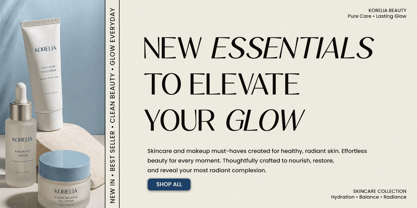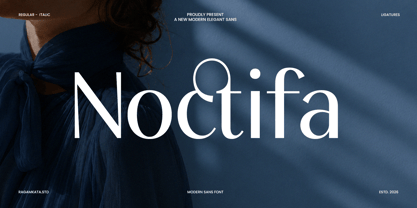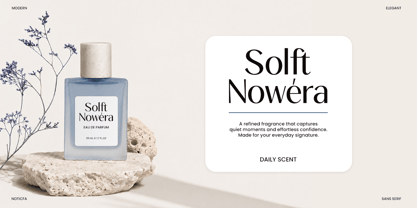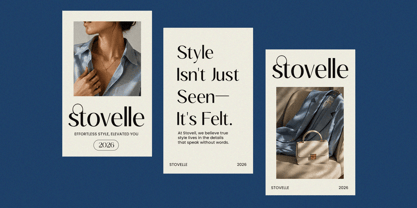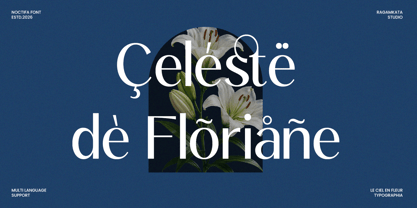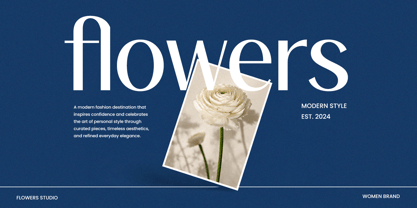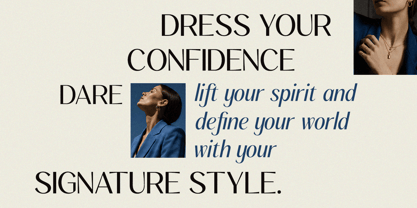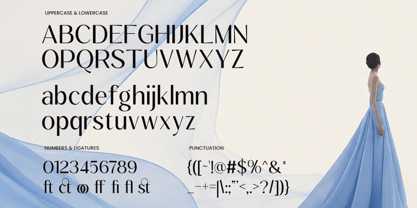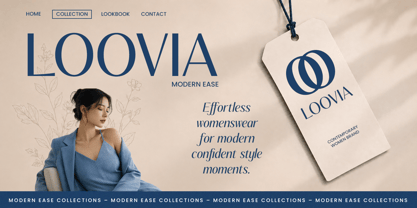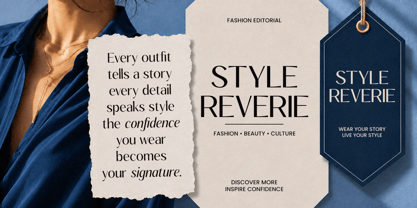
Noctifa
Noctifa is a modern luxury sans serif font crafted for sophisticated branding and contemporary editorial design. Featuring clean geometry, refined proportions, and elegant letterforms, it delivers a premium visual identity that feels confident, stylish, and effortlessly modern.
Designed for creative professionals, Noctifa works beautifully across fashion campaigns, luxury branding, magazines, cosmetics, packaging, logo design, websites, social media, advertising, and premium marketing materials. Its balanced structure and timeless aesthetic make it versatile for both bold headlines and polished brand identities.
Whether you're building a modern fashion label, designing premium packaging, or creating striking editorial layouts, Noctifa provides the clarity, elegance, and professional finish needed to make every project stand out.
• Stylistic Ligature
• Uppercase and Lowercase
• Number, Symbol, and Punctuation
• Multilingual Support